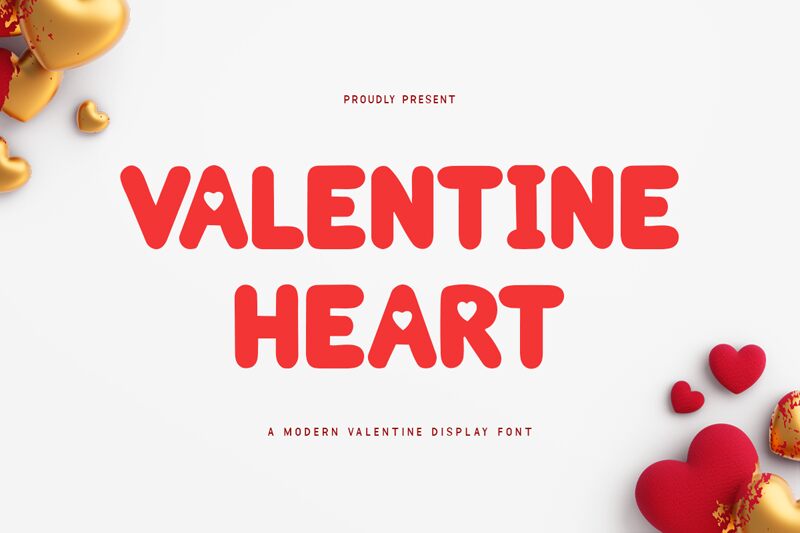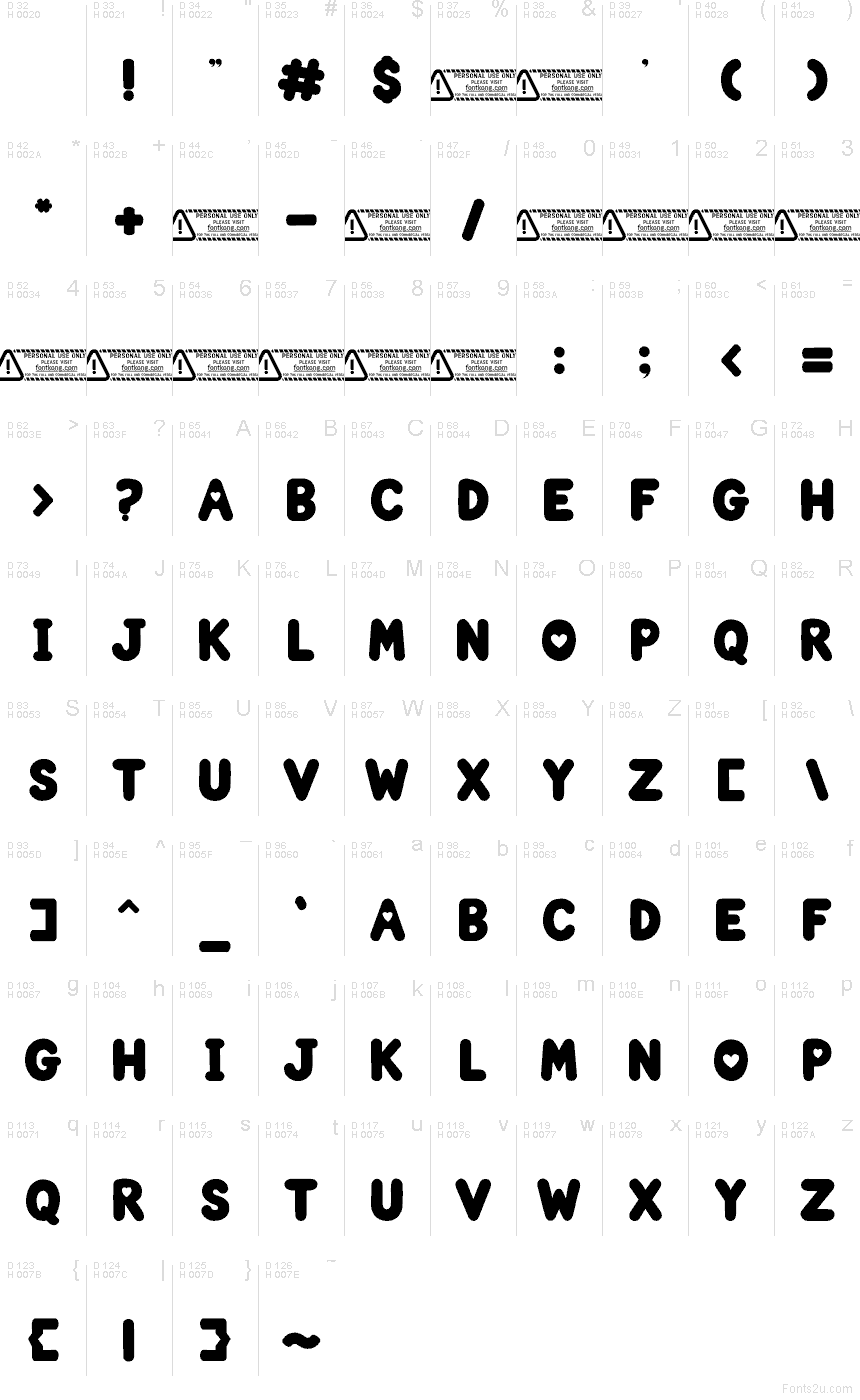
Valentine Heart font by Kong Font is a free holiday valentine typeface with bubbly, candy-like letters and playful heart cutouts that instantly read as “love note.” The rounded strokes feel soft and squishy, almost like piped icing on a cupcake, while the bold weight makes every word stand out even at a glance. It’s friendly rather than overly fancy, giving your romantic designs a sweet, approachable charm.
Using Valentine Heart, you can knock out cute greeting cards, classroom valentines, party invitations, stickers, and social media graphics in minutes. This free font shines on headers, short phrases, and logo-type marks for seasonal brands or gift packaging. Try pairing it with a simple, clean sans-serif for body copy and keep Valentine Heart big and spacious so those heart details stay crisp and readable.